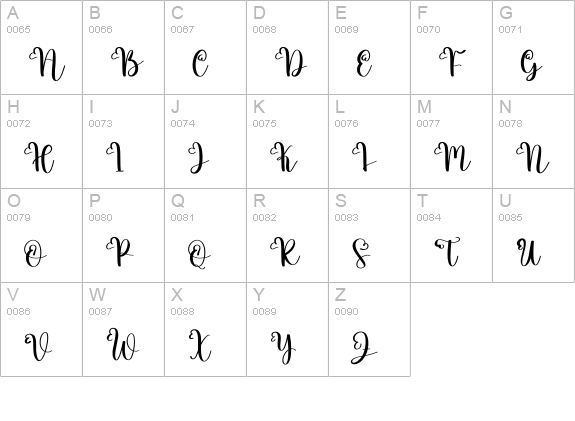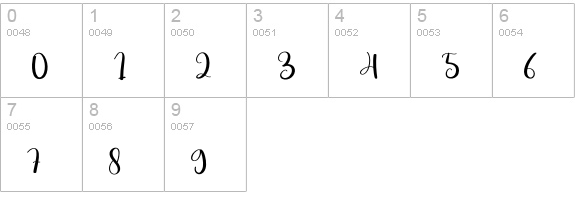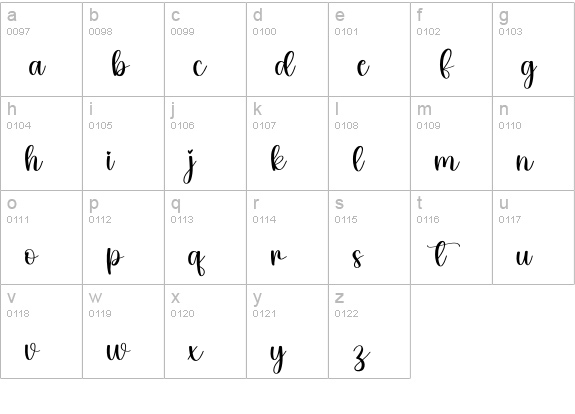
Vacation Valentine is a free for personal use font in the Script > Handwritten category, designed by scratchones. It has been downloaded 49 times and is available for Windows, Mac and Linux.
Introducing Vacation Valentine font, a whimsical and playful typeface perfect for adding a touch of charm to your designs. With its delicate strokes and romantic flair, this font captures the essence of a carefree vacation on Valentine's Day. The Vacation Valentine font is ideal for creating greeting cards, invitations, posters, and more, infusing your projects with a sense of love and joy.